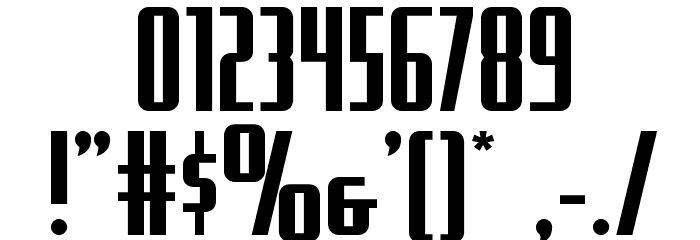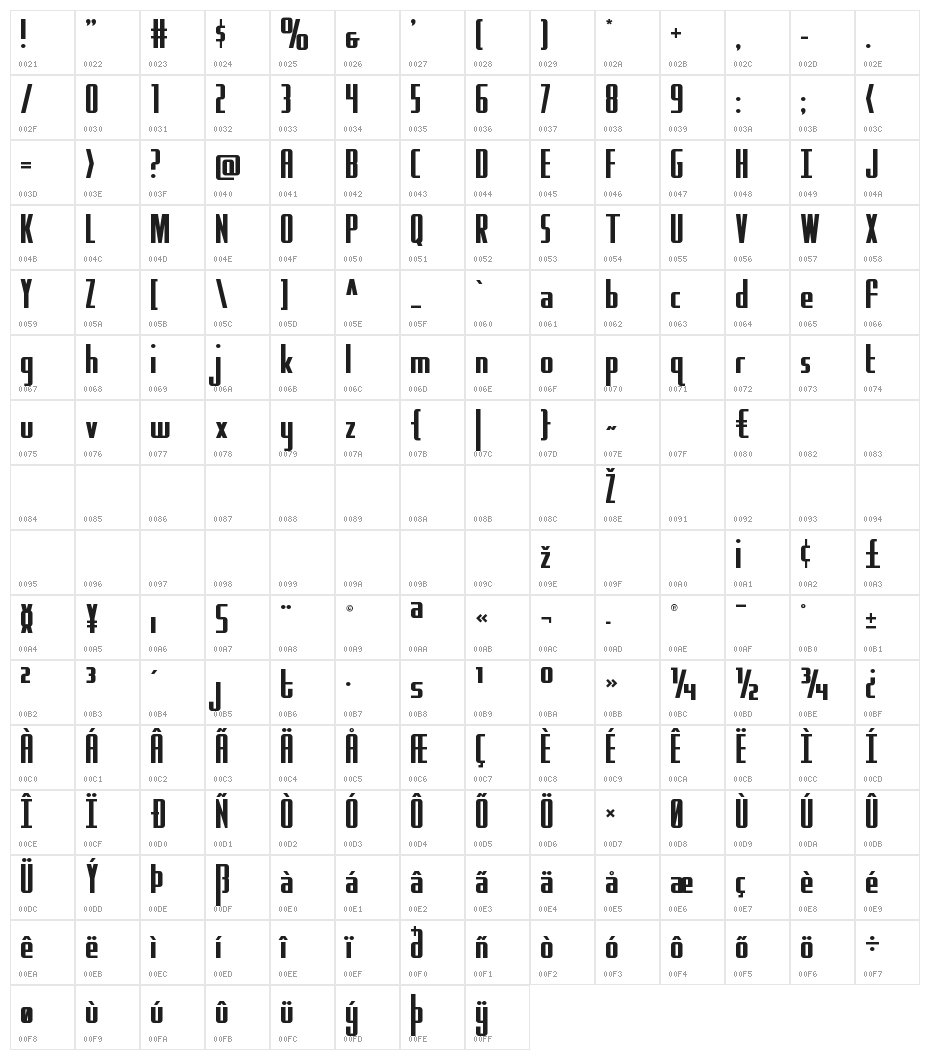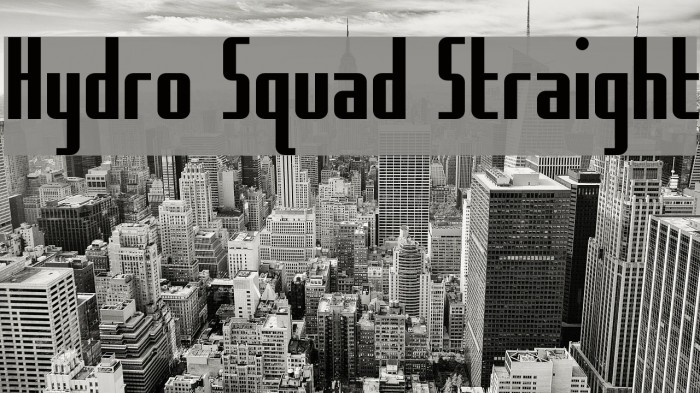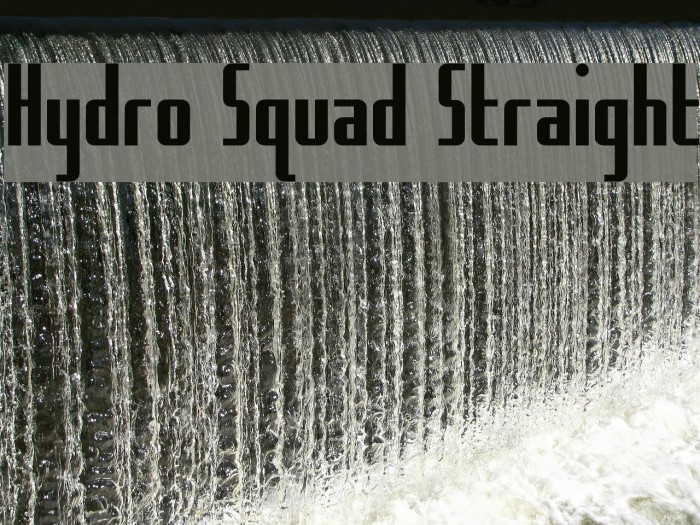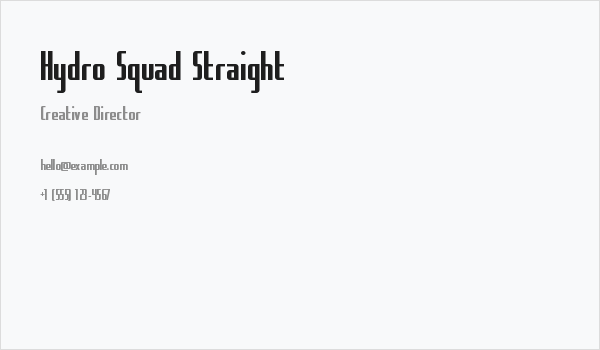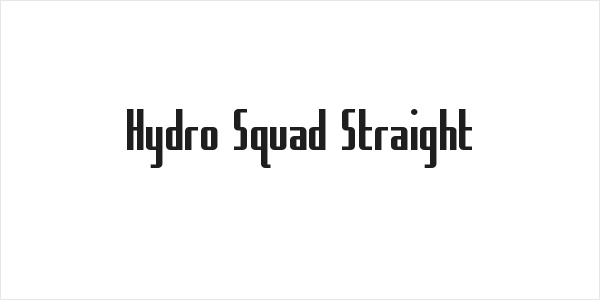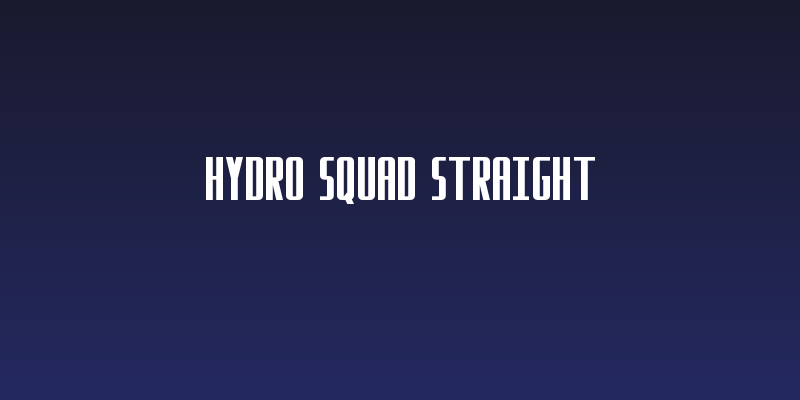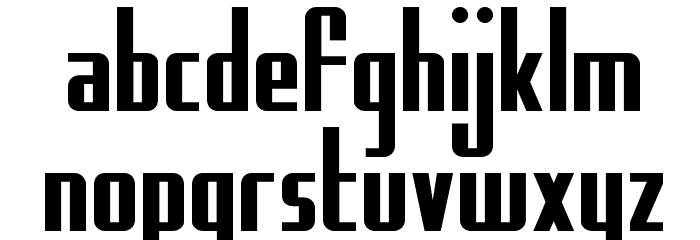
Hydro Squad Straight Font
Hydro Squad Straight Description
This font features a bold, geometric style with strong vertical lines and sharp angles, giving it a modern and assertive appearance. The uppercase letters are tall and commanding, while the lowercase letters maintain a consistent height, contributing to a uniform look. The numerals are distinct and easily readable, matching the boldness of the alphabetic characters. Special characters are designed with the same attention to detail, ensuring they integrate seamlessly with the rest of the font. The overall design is clean and impactful, making it ideal for attention-grabbing headlines or branding projects.
Proposed ProjectsIdeal for branding, headlines, posters, and any project requiring a strong visual impact.